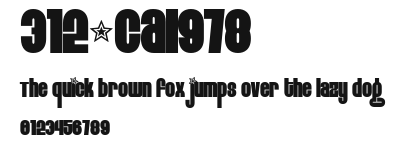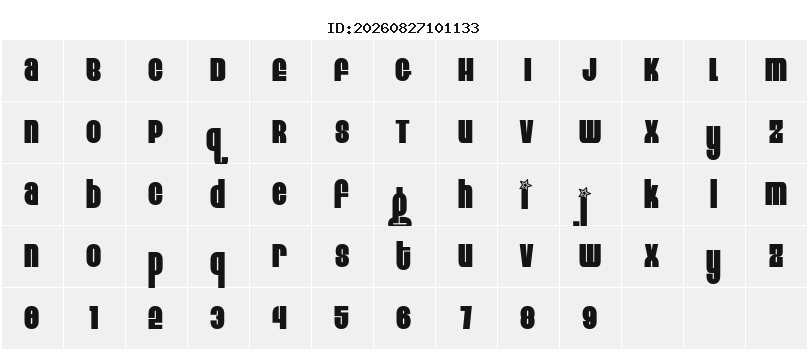
• Font Name: 312-CAI978
• Full Font Name: 312-CAI978
• Version: Version 1.00 February 18, 1999, initial release
About 312-CAI978.ttf
312-CAI978.ttf is a modern, elegant sans-serif font designed for ultimate readability and visual harmony. Perfect for branding, headlines, web design, and print materials.